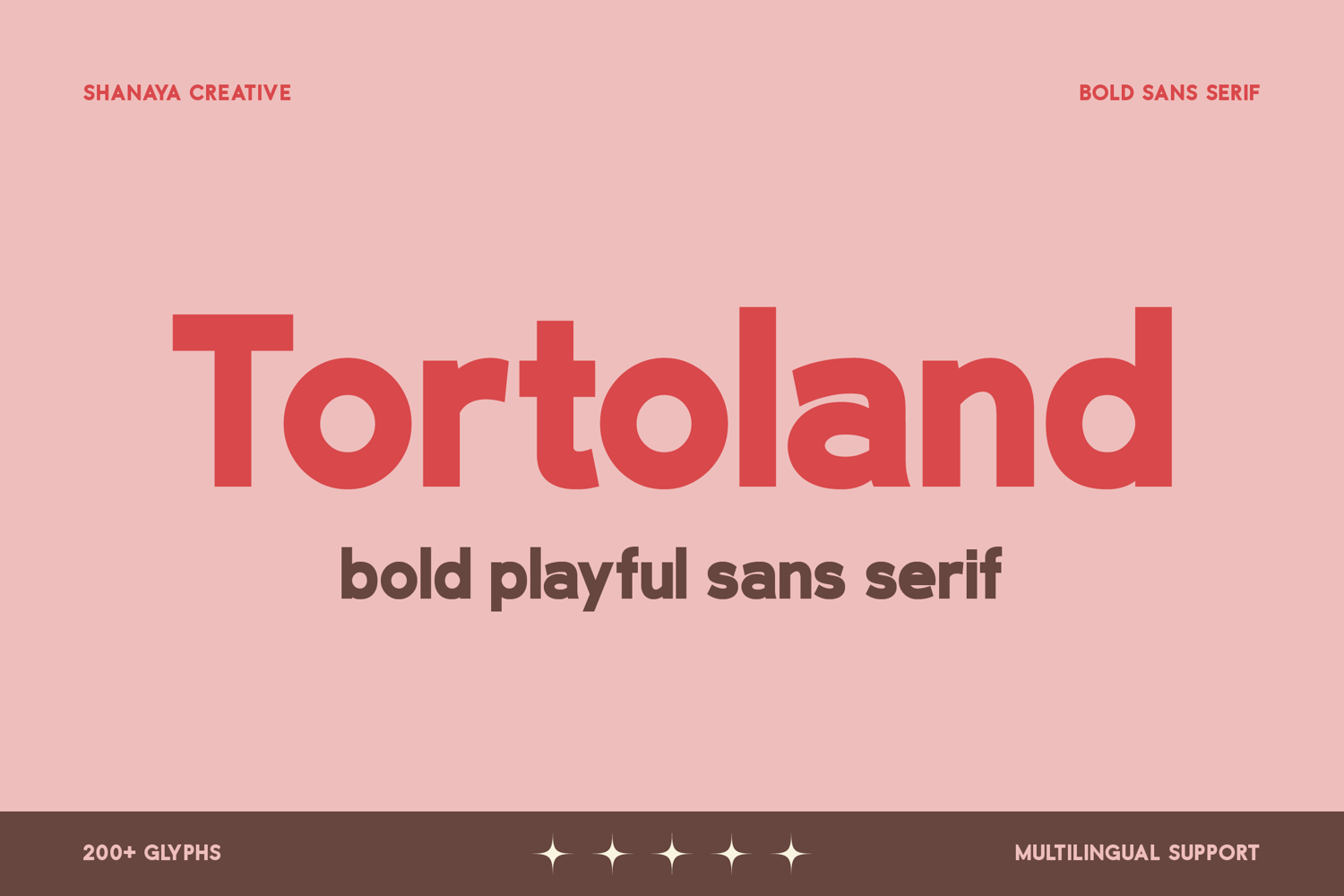
Tortoland Bold Playful Sans Serif
Tortoland
Tortoland – Bold Playful Sans Serif
Meet Tortoland, a bold sans serif typeface with a fun, friendly personality. Designed with smooth geometric shapes and subtle quirks, it delivers a perfect mix of confidence and playfulness. Tortoland shines in modern branding, headlines, packaging, social media visuals, and editorial layouts.
• Uppercase & lowercase letters
• Numbers & punctuation
• 200+ glyphs
Logos, posters, social media, packaging, website titles, editorial design, and more.